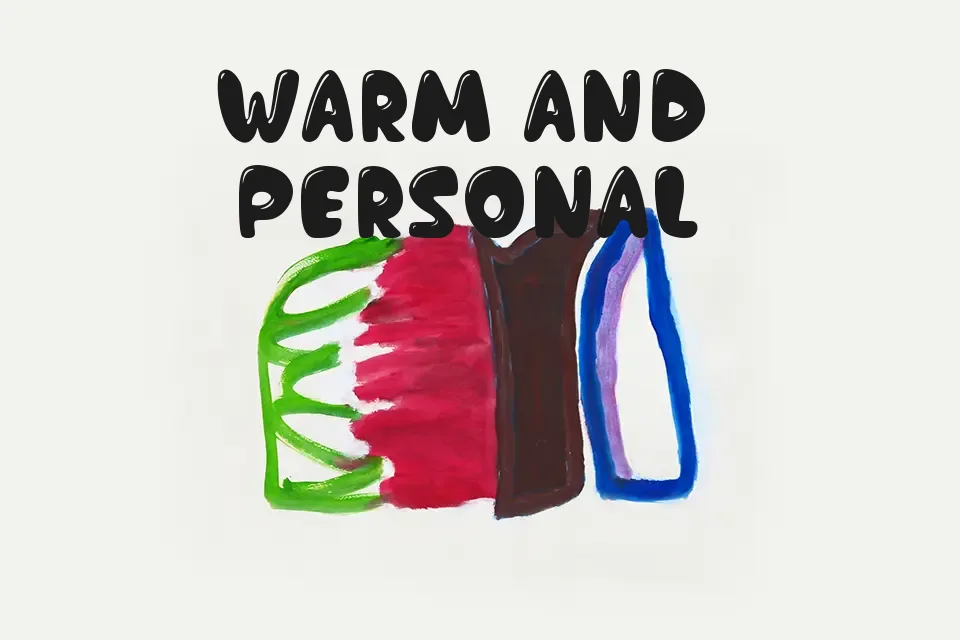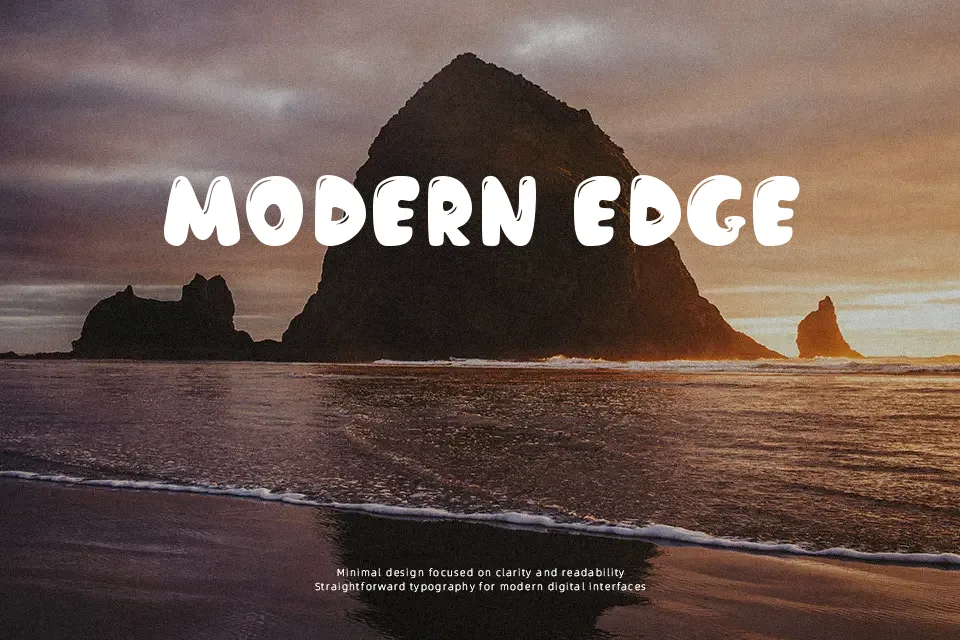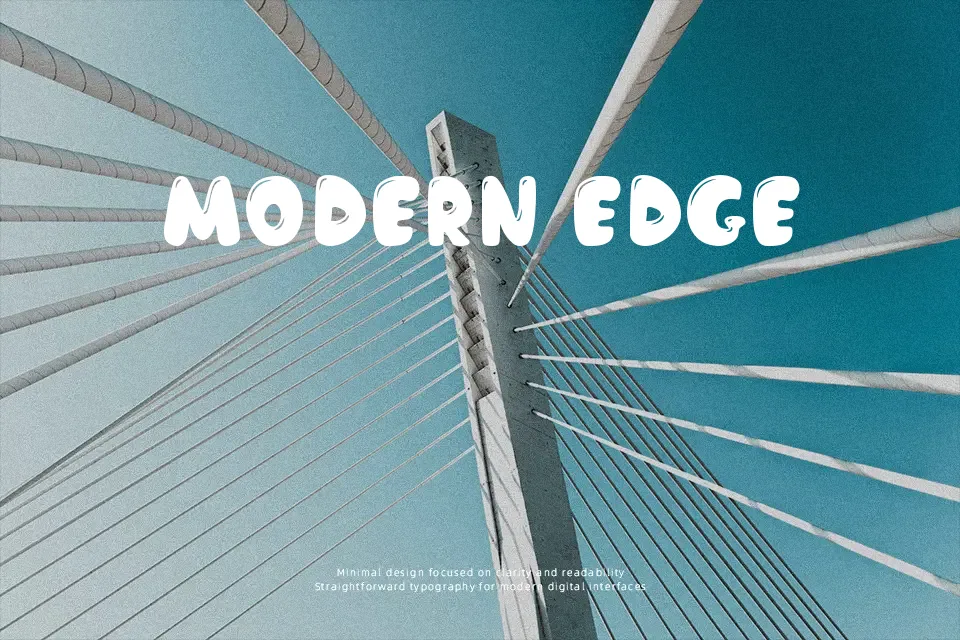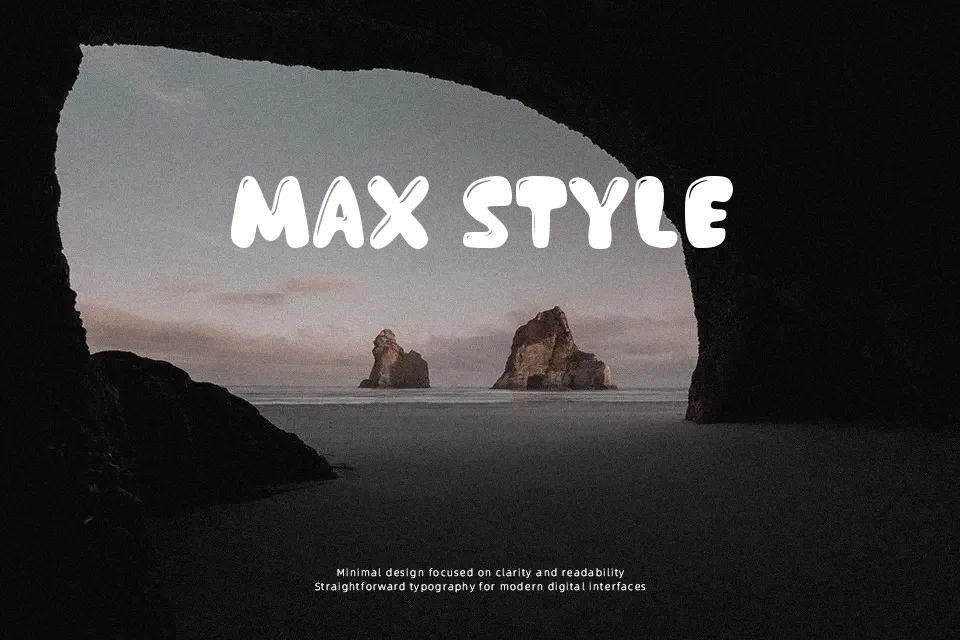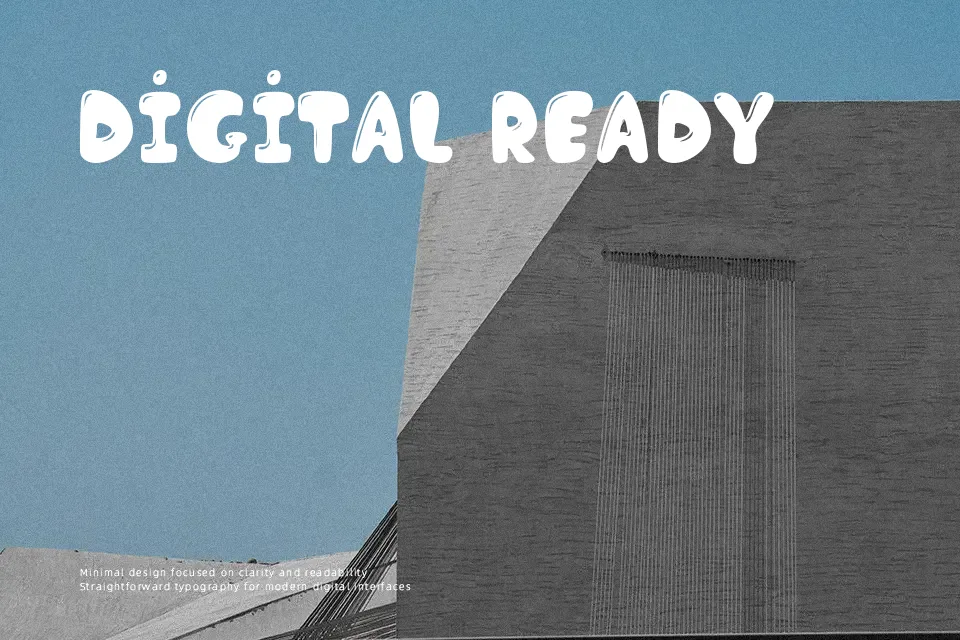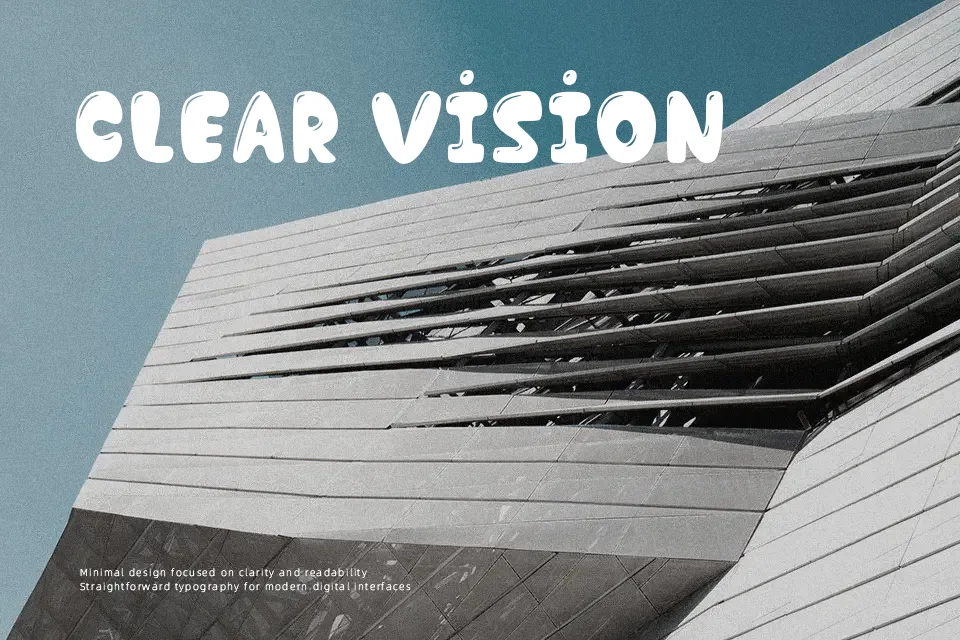
Chocolate Bar Font
Designed with exaggerated weight and soft contours, Chocolate Bar Font immediately establishes a cheerful, approachable presence across large-format media. The typeface features ultra-thick strokes, compact interior counters, and uniformly rounded terminals that generate a distinct puffed silhouette. Proportions remain wide and stable, while tight character spacing keeps word shapes compact and punchy in promotional graphics. These bold structural qualities ensure excellent visibility on event signage and dessert menus. However, the heavy stroke mass and minimal internal negative space cause small captions to lose clarity rapidly. The design performs best when reserved exclusively for brief, high-impact headlines rather than continuous reading.
Best For: snack packaging,dessert menu titles,children party banners,merchandise headers
Not Ideal For: long paragraph text,dense mobile interfaces,legal contracts,technical documentation
Perfect for headline, kids, and logo, with a bold and decorative style.